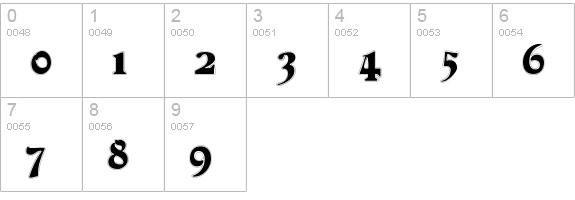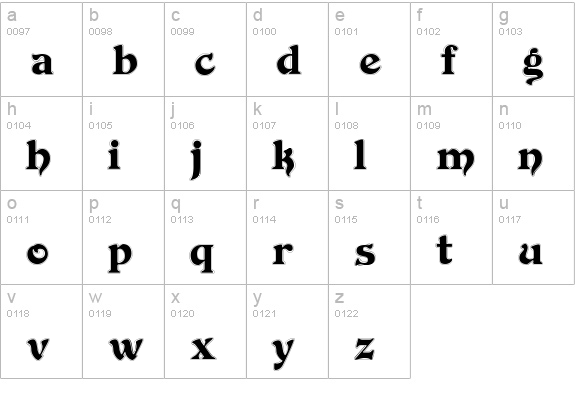
DuvallOutline Font Details
DuvallOutline font is a stunning display typeface that exudes elegance and sophistication. With its sleek lines and modern aesthetic, this font is perfect for adding a touch of class to any design project. The outline style of DuvallOutline gives it a unique and contemporary look that is sure to make your text stand out. Whether you're designing a logo, poster, or website, DuvallOutline is the perfect choice for creating eye-catching typography. Best of all, DuvallOutline font is completely free to download at FontsMarket.com. This means that you can access this premium font without breaking the bank. Don't miss out on the opportunity to elevate your designs with DuvallOutline font - download it today and start creating stunning visuals that are sure to impress!